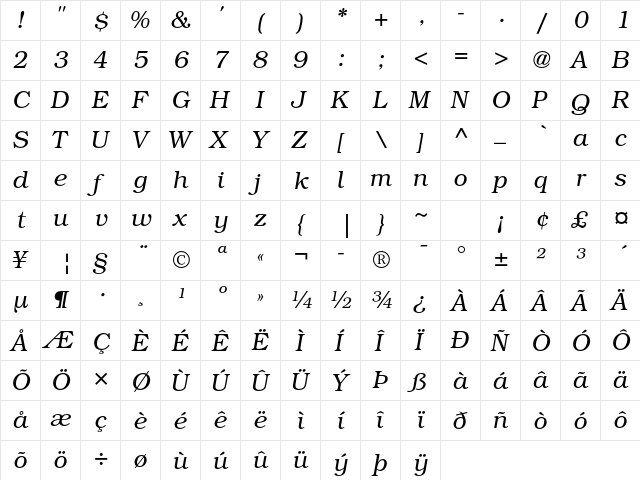
ITC Bookman Std Light Italic
| Designer | Ed Benguiat |
Design Context for ITC Bookman Std Typeface
ITC Bookman Std is a composed and adaptable typeface that performs quietly and consistently across a wide range of design contexts. The slanted form adds forward momentum and visual energy. Its slender proportions lend an understated elegance to any composition.
Pro Tip: Try ITC Bookman Std for annotation and caption copy alongside an upright companion — the contrast in angle creates a dynamic but ordered typographic system.